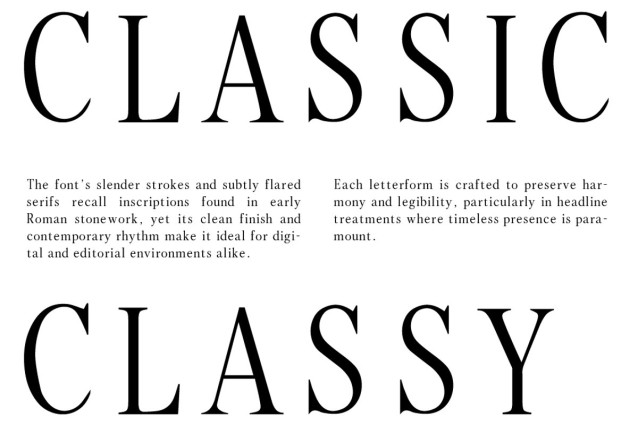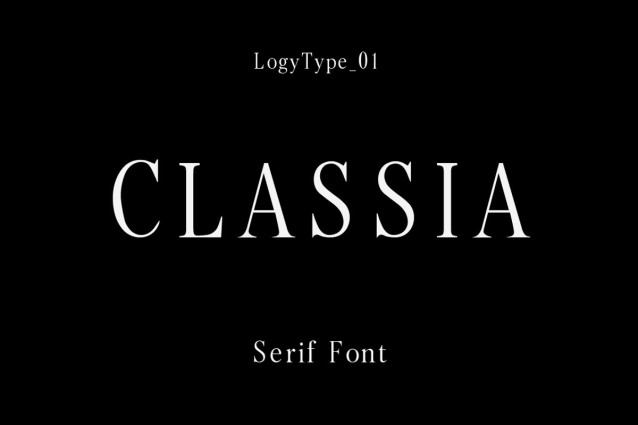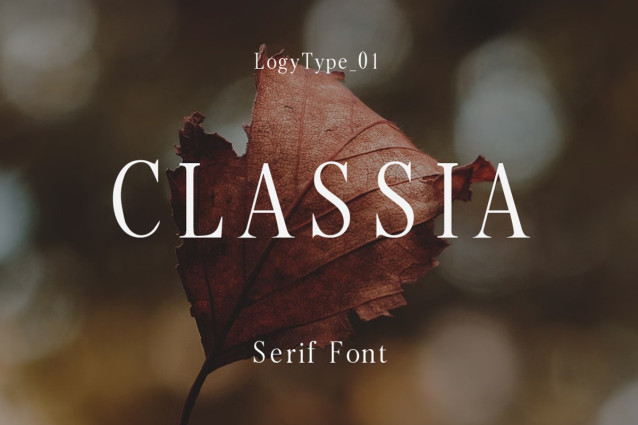
Classia Font
Classia Font is a classic and elegant serif font with personality, combining classic style with a fresh modern touch. With its striking shapes and creative interlacing effect, this font offers a unique and eye-catching look, perfect for all kinds of creative projects.